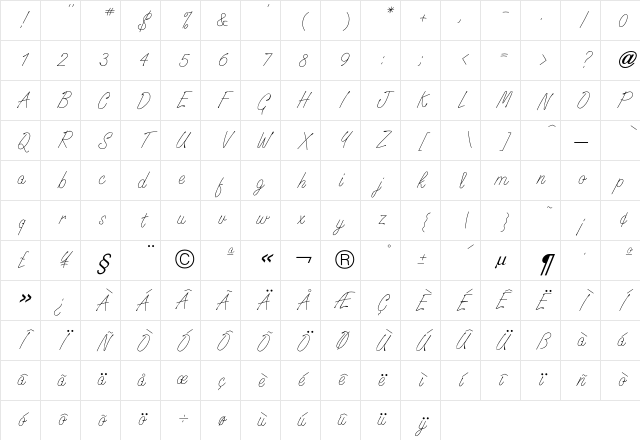
Signature Light Free Font
Signature Light
Signature Light Family
Complete Signature Light glyph index. Displaying only characters natively supported by Signature Light font.
Design Context for Signature
Signature is a composed and adaptable typeface that performs quietly and consistently across a wide range of design contexts. Its slender proportions lend an understated elegance to any composition.